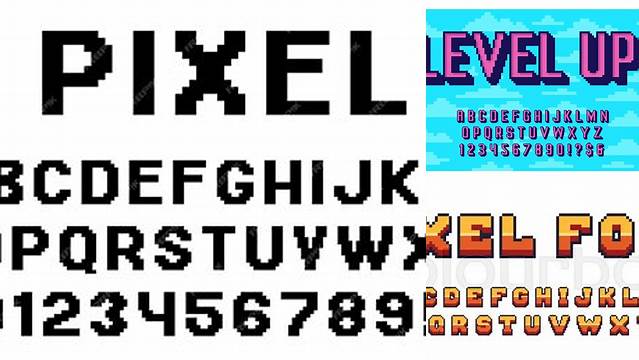
Pixel Fonts: Free Downloads & Retro Typography Guide
Are you looking to inject some retro charm into your designs? Look no further! In this comprehensive guide, we'll delve into the fascinating world of pixel fonts, those wonderfully blocky typefaces that evoke the nostalgia of classic video games and early computer graphics. We'll explore where you can find these gems for free download, how to use them effectively, and even touch upon the history and evolution of pixel fonts. So, buckle up, fellow design enthusiasts, and let's dive into the pixelated universe!
What are Pixel Fonts?
First, let's define what we mean by pixel fonts. These fonts, also known as bitmap fonts or 8-bit fonts, are specifically designed to be displayed at small sizes, where each character is constructed from individual pixels. Unlike smooth, scalable vector fonts, pixel fonts have a distinct, blocky appearance. This characteristic look is what gives them their retro appeal and makes them perfect for projects aiming for a vintage or techy vibe. Think classic arcade games like Pac-Man or Space Invaders – the fonts used in those games are quintessential examples of pixel fonts.
The beauty of pixel fonts lies in their simplicity. Each letterform is meticulously crafted on a pixel grid, often resulting in a limited number of distinct shapes. This limitation, however, is also their strength. It forces designers to be creative and resourceful, resulting in typefaces that are instantly recognizable and memorable. The fixed, non-anti-aliased nature of these fonts means they render crisply and clearly at their intended size, a crucial factor in the early days of computing when screen resolutions were much lower than today. This clarity and legibility, even at small sizes, make pixel fonts an excellent choice for user interfaces, especially in contexts where a retro aesthetic is desired. Moreover, pixel fonts often carry a sense of technical precision and functionality, which can be valuable for projects related to technology, coding, or data visualization. The inherent limitations of pixel fonts, stemming from their construction on a pixel grid, demand a meticulous attention to detail from the designer. Each pixel placement matters, influencing the overall readability and visual impact of the font. This level of precision fosters a unique design challenge, encouraging the creation of typefaces that are both functional and aesthetically pleasing within a constrained environment.
Why Use Pixel Fonts?
So, why would you choose a pixel font over a more modern, smooth typeface? The answer is multifaceted. Firstly, they offer a distinct aesthetic that's instantly recognizable and evokes a sense of nostalgia. If you're working on a project that aims to capture the look and feel of the 80s or 90s, a pixel font is an absolute must. Think retro gaming websites, pixel art projects, or even designs for tech-related events with a vintage theme. Secondly, pixel fonts can be incredibly legible at small sizes. This makes them ideal for user interfaces, icons, and other situations where readability is paramount. Even in our high-resolution world, pixel fonts can provide a certain clarity and sharpness that smooth fonts sometimes lack, especially when dealing with very small text. Thirdly, using pixel fonts can be a conscious design choice to embrace simplicity and minimalism. In a world of increasingly complex designs, the stark, blocky forms of pixel fonts can offer a refreshing contrast. They can convey a sense of directness and functionality, making them suitable for projects that prioritize clarity and efficiency.
The versatility of pixel fonts extends beyond their aesthetic appeal and readability. They can also be used to convey specific messages or brand identities. For instance, a technology company might use a pixel font to project an image of innovation and expertise, while a creative agency could use it to evoke a sense of playfulness and originality. The use of pixel fonts can also be a subtle nod to the history of technology and design, acknowledging the roots of the digital world. This can be particularly effective in projects that aim to connect with an audience that appreciates the evolution of technology and its influence on culture. Moreover, the unique characteristics of pixel fonts can make them a powerful tool for branding, helping to create a distinctive visual identity that sets a project apart from the competition. The deliberate choice of a pixel font can communicate a specific design philosophy, emphasizing a commitment to simplicity, functionality, and a connection to the past.
- 1001 Fonts: Similar to DaFont, 1001 Fonts offers a wide selection of free fonts, including a dedicated section for pixel fonts. The site has a user-friendly interface and allows you to easily preview fonts before downloading them.
- Google Fonts: While Google Fonts is best known for its web-friendly fonts, it also has a selection of pixel fonts that are available under open-source licenses. These fonts are typically well-designed and optimized for use on the web.
- Various Independent Designers' Websites: Many talented independent designers offer their pixel fonts for free download on their personal websites. A quick Google search for "free pixel fonts" will uncover a treasure trove of resources.
When exploring these resources, it's essential to pay attention to the licensing terms associated with each font. While many pixel fonts are available for personal use, commercial use may require a specific license or attribution. Always double-check the license agreement to ensure you're using the font legally and ethically. Additionally, consider the overall quality and readability of the pixel font before incorporating it into your project. While a font might look visually appealing, it's crucial to ensure that it remains legible at the intended size and in the specific context of your design. Experiment with different pixel fonts to find the one that best suits your project's aesthetic and functional requirements.
How to Use Pixel Fonts Effectively
Downloading a pixel font is just the first step. To truly master the art of pixel typography, you need to understand how to use these fonts effectively. Here are a few tips and best practices:
So, there you have it – a comprehensive guide to pixel fonts! From their history and characteristics to where to find them for free download and how to use them effectively, we've covered all the essentials. Whether you're a seasoned designer or just starting your creative journey, pixel fonts offer a unique and exciting way to add personality and style to your projects. So go forth, explore the world of 8-bit typography, and let your creativity pixelate!